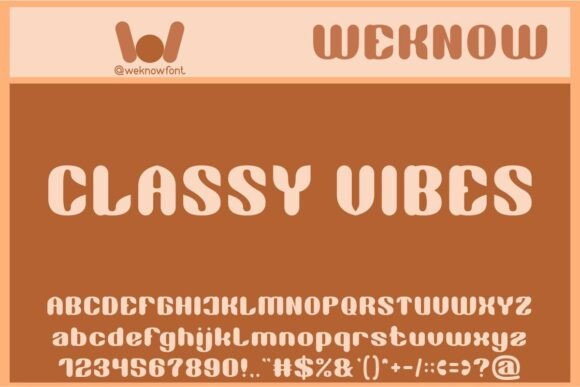
Classy Vibes Font: Elevate Your Design with Elegance and Eclecticism
In the world of typography, a font can make all the difference in conveying the right message and aesthetic to your audience. Introducing “Classy Vibes,” a multifaceted font that embodies elegance and a touch of eclecticism, perfect for designers and creatives looking to elevate their projects. Inspired by the beauty of nature and the power of positivity, Classy Vibes is designed to evoke feelings of pleasure and appeal with just a few strokes.
Key Features of Classy Vibes Font
- Elegant and Eclectic Design: Classy Vibes boasts a unique blend of sophistication and playfulness, making it perfect for a wide range of design applications.
- Nature-Inspired: The font’s design is influenced by the natural world, lending a sense of organic charm to your creations.
- Positivity and Pleasure: The font’s curves and lines are crafted to evoke feelings of joy and delight, making it ideal for projects that aim to inspire and uplift.
- Multifaceted: Classy Vibes is a versatile font that can be used for various design tasks, from branding and advertising to publishing and digital media.
Endless Design Possibilities with Classy Vibes
Classy Vibes is an idyllic choice for a plethora of design tasks. Here are some ideas to get you started:
- Branding and Logo Design: Create a lasting impression with a custom logo that exudes elegance and sophistication.
- Apparel Line: Empower your fashion brand with a font that adds a touch of class to your designs.
- Posters and Flyers: Spice up your promotional materials with a font that demands attention.
- Music Tracks and Movie Titles: Add a unique edge to your music or film project with a font that evokes the right emotions.
- Game Logo: Create a memorable gaming brand with a font that’s both fun and sophisticated.
- Themed Magazines and Books: Elevate your publishing projects with a font that adds a touch of elegance and whimsy.
- Comics and Cartoons: Bring your characters to life with a font that’s playful and engaging.
Seamless Integration with Digital Landscapes
In today’s digital age, it’s essential to have a font that syncs perfectly with various online platforms. Classy Vibes is designed to be compatible with:
- YouTube: Enhance your video content with a font that adds a touch of sophistication.
- Instagram: Elevate your social media presence with a font that’s both visually appealing and engaging.
- Bespoke Websites: Add a unique edge to your custom website with a font that’s both elegant and eclectic.
Tips for Getting the Most out of Classy Vibes
To maximize the potential of Classy Vibes, consider the following design tips:
- Experiment with Font Sizes: Play with different font sizes to create visual hierarchy and emphasis.
- Mix and Match with Other Fonts: Combine Classy Vibes with other fonts to create a unique and visually appealing typography.
- Pay Attention to Kerning and Spacing: Ensure that your text is easy to read by adjusting kerning and spacing to perfection.
Elevate Your Design with Classy Vibes Font
In conclusion, Classy Vibes is a versatile and elegant font that’s perfect for designers and creatives looking to add a touch of sophistication and eclecticism to their projects. With its nature-inspired design, positivity, and multifaceted features, Classy Vibes is an excellent choice for a wide range of design applications. Whether you’re working on branding, advertising, publishing, or digital media, Classy Vibes is sure to elevate your creative vision and lend a unique edge to each of your design projects.